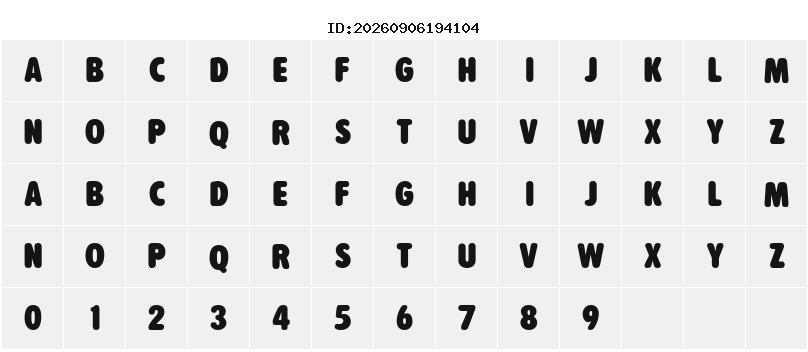
T.H. Alphabet Soup Preview
• Font Name: T.H. Alphabet Soup
• Full Font Name: T.H. Alphabet Soup Regular
About T.H. Alphabet Soup.ttf
T.H. Alphabet Soup.ttf is a modern, elegant sans-serif font designed for ultimate readability and visual harmony. Perfect for branding, headlines, web design, and print materials.